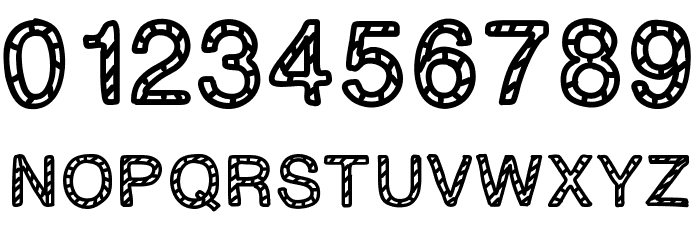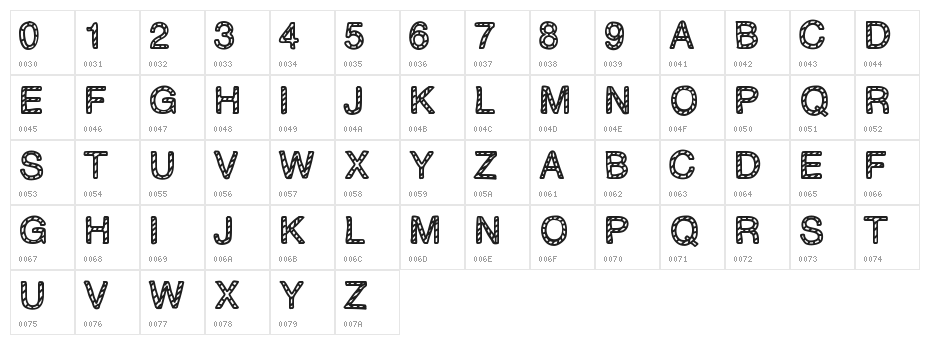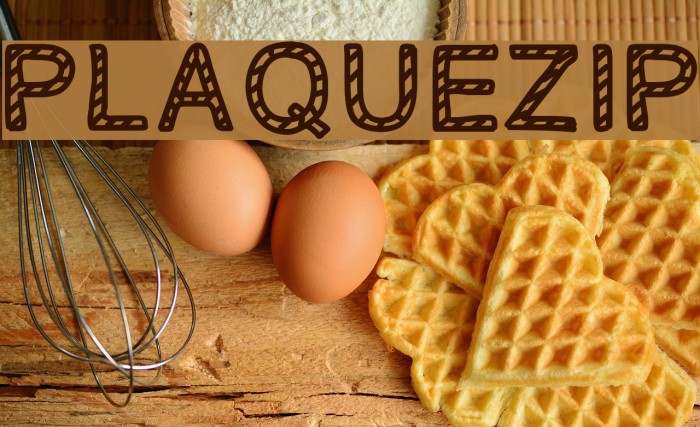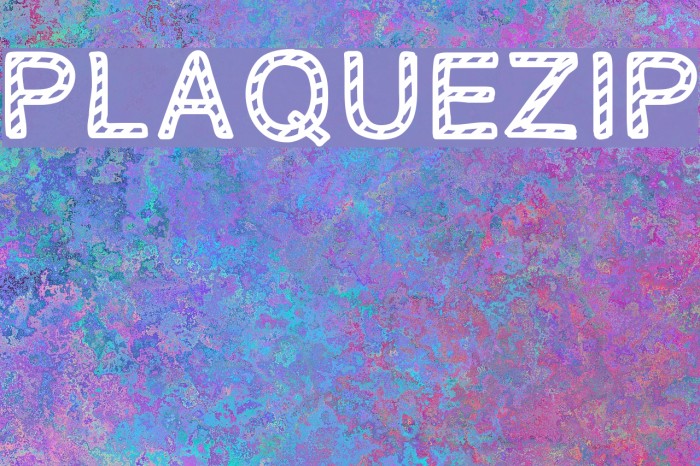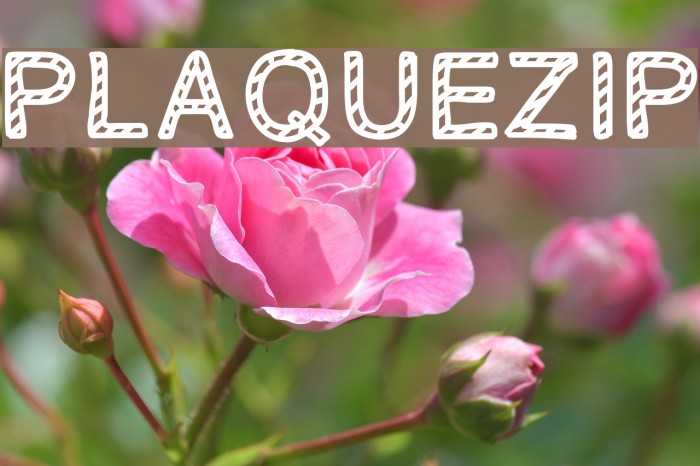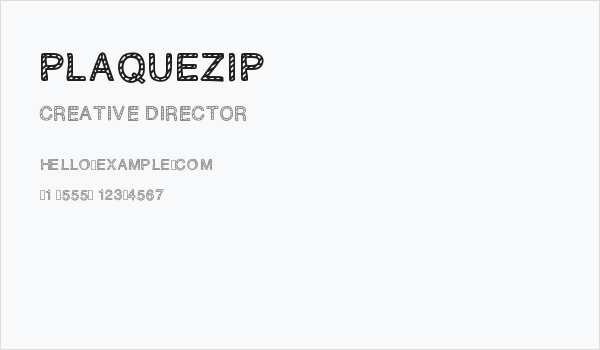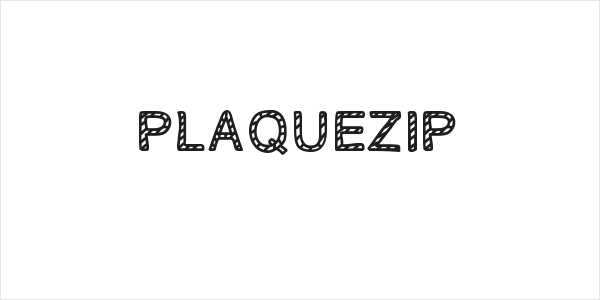
PLAQUEZIP Font
PLAQUEZIP Description
This font features a playful and decorative style with a unique pattern inside each character. The letters are outlined with a bold black stroke, and the interior is filled with a series of diagonal lines, creating a dynamic and eye-catching effect. The uppercase and lowercase letters maintain a consistent design, ensuring uniformity across the typeface. The numerals and special characters follow the same decorative pattern, making them stand out. This font is ideal for projects that require a fun and engaging visual element, such as children's books, posters, or party invitations. Its distinctive style captures attention and adds a whimsical touch to any design.
Proposed ProjectsIdeal for children's books, posters, party invitations, and any design needing a fun, engaging look.